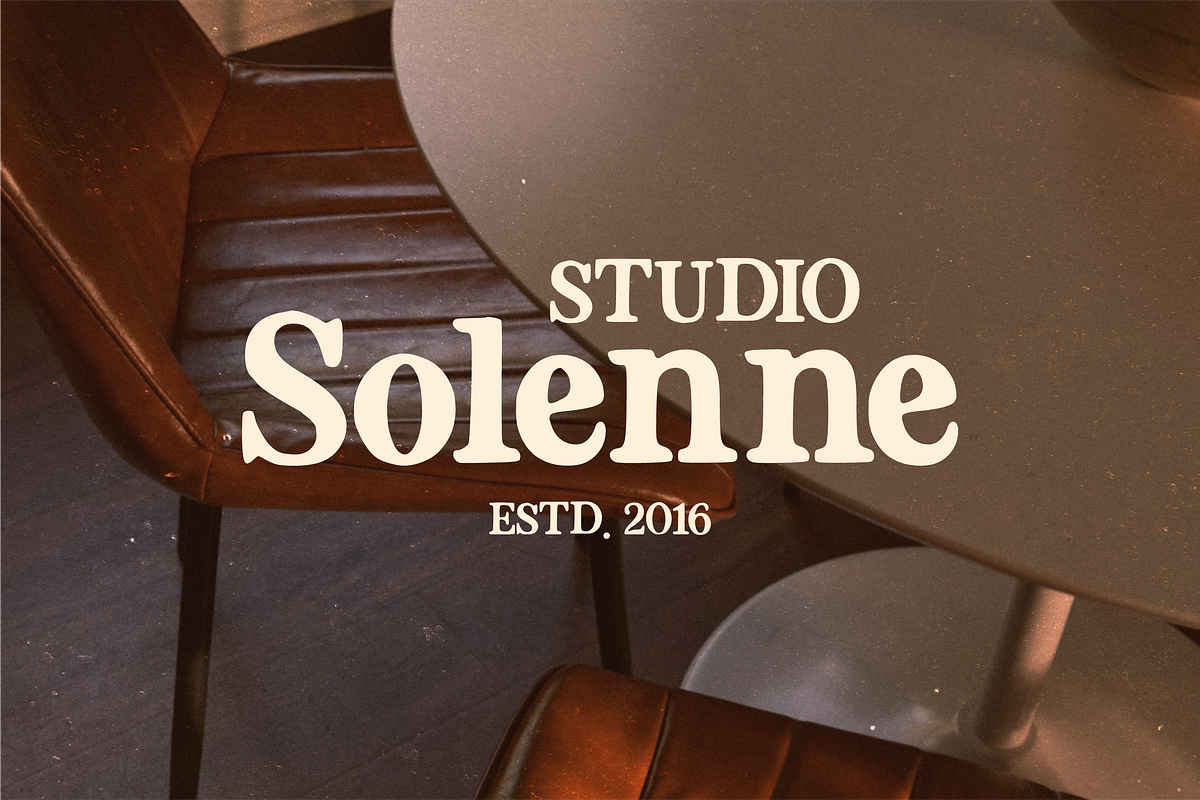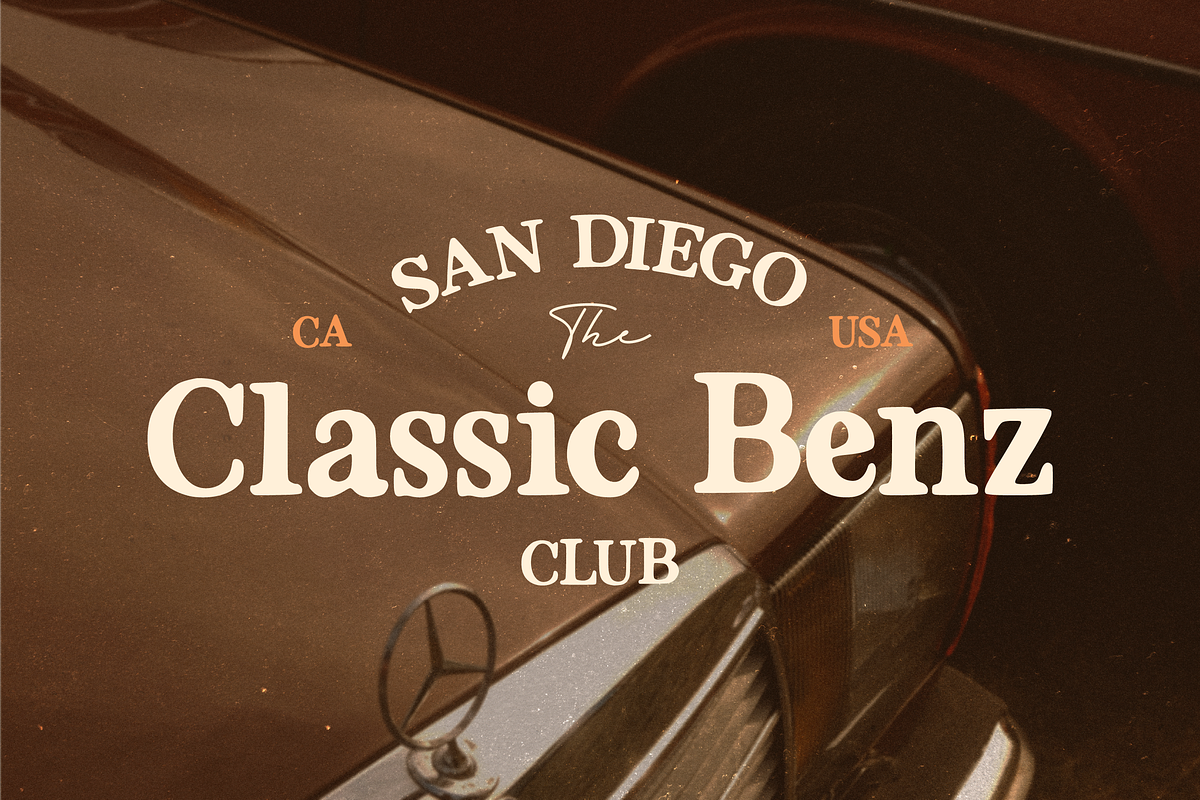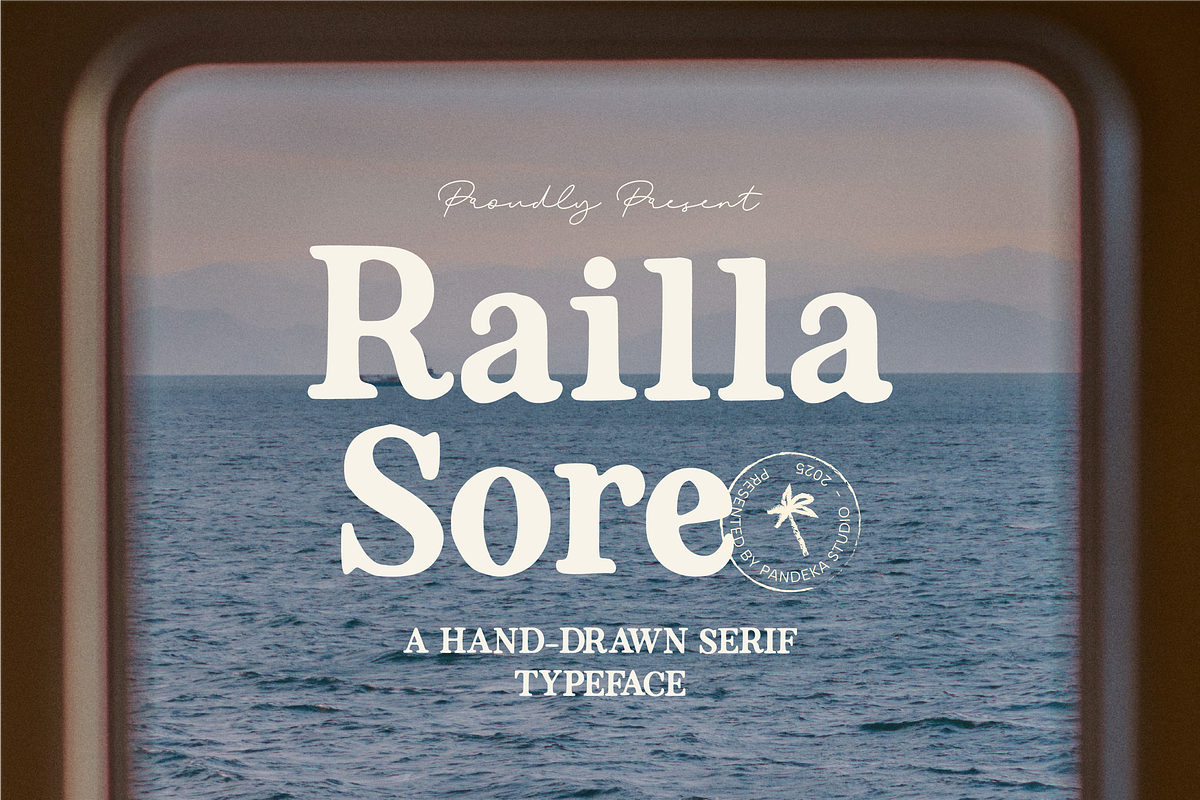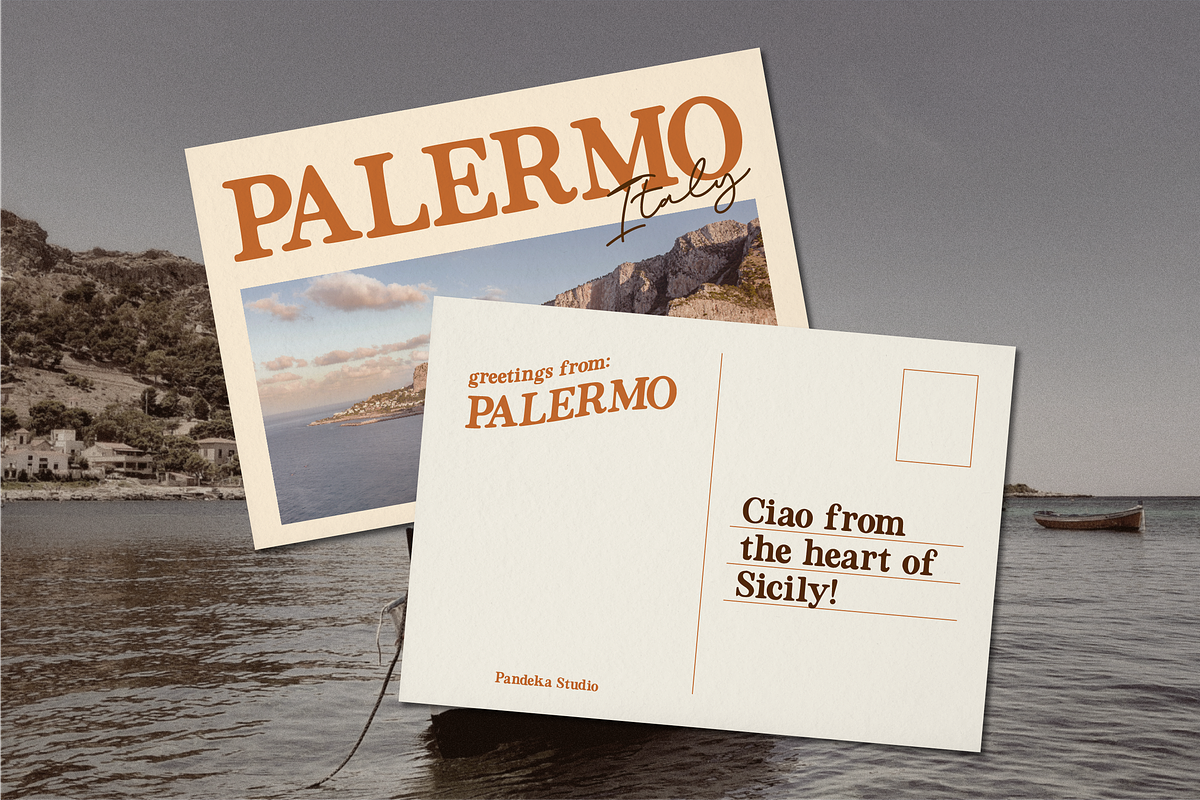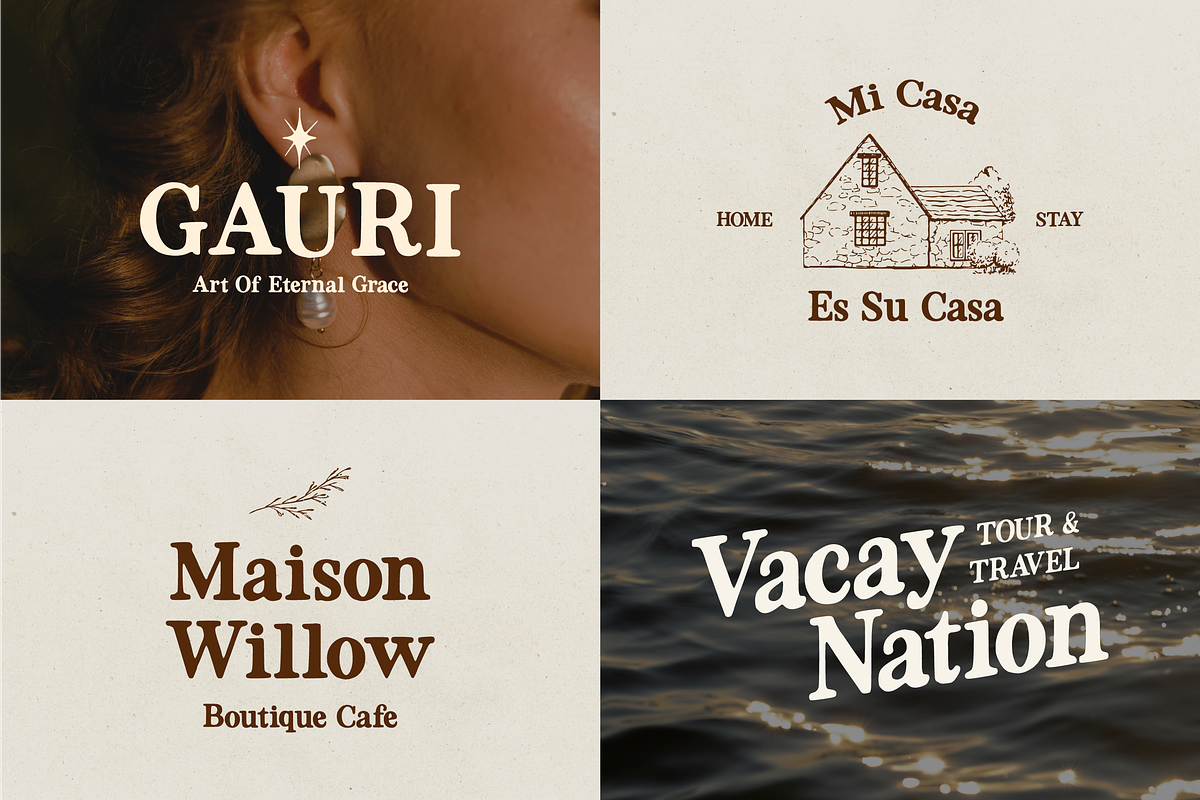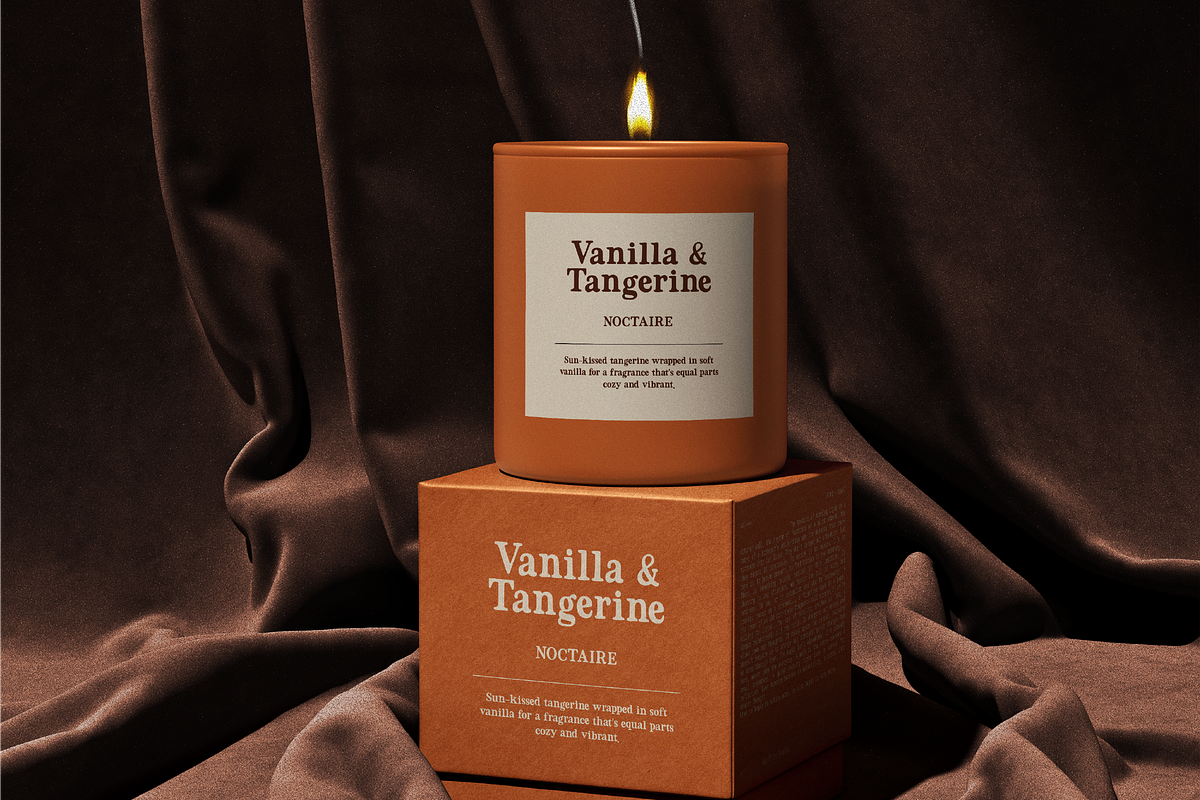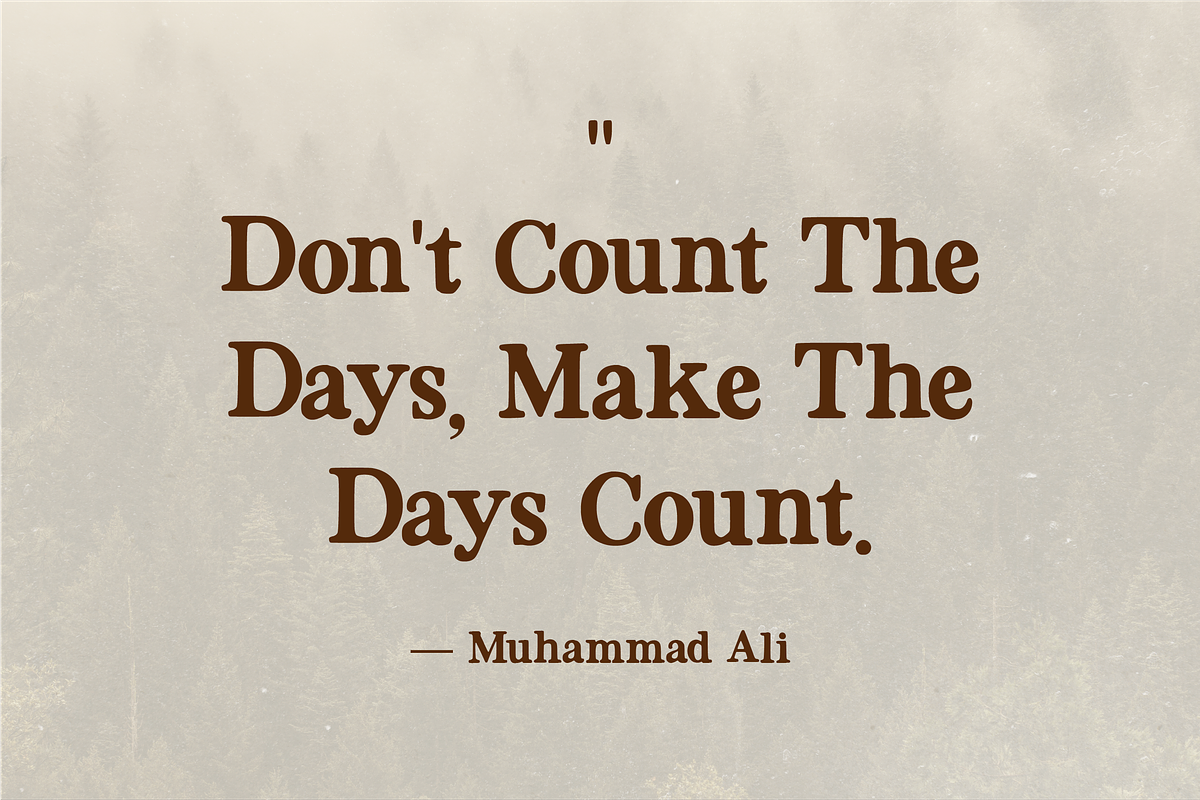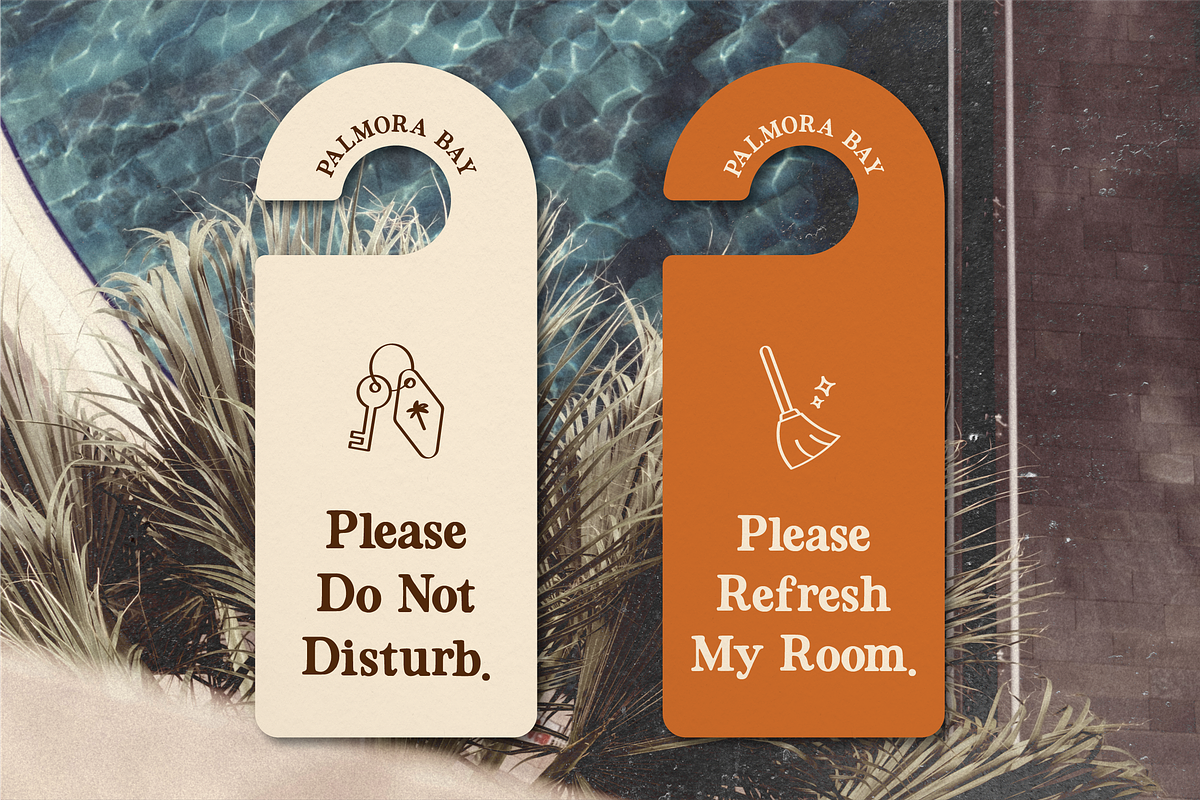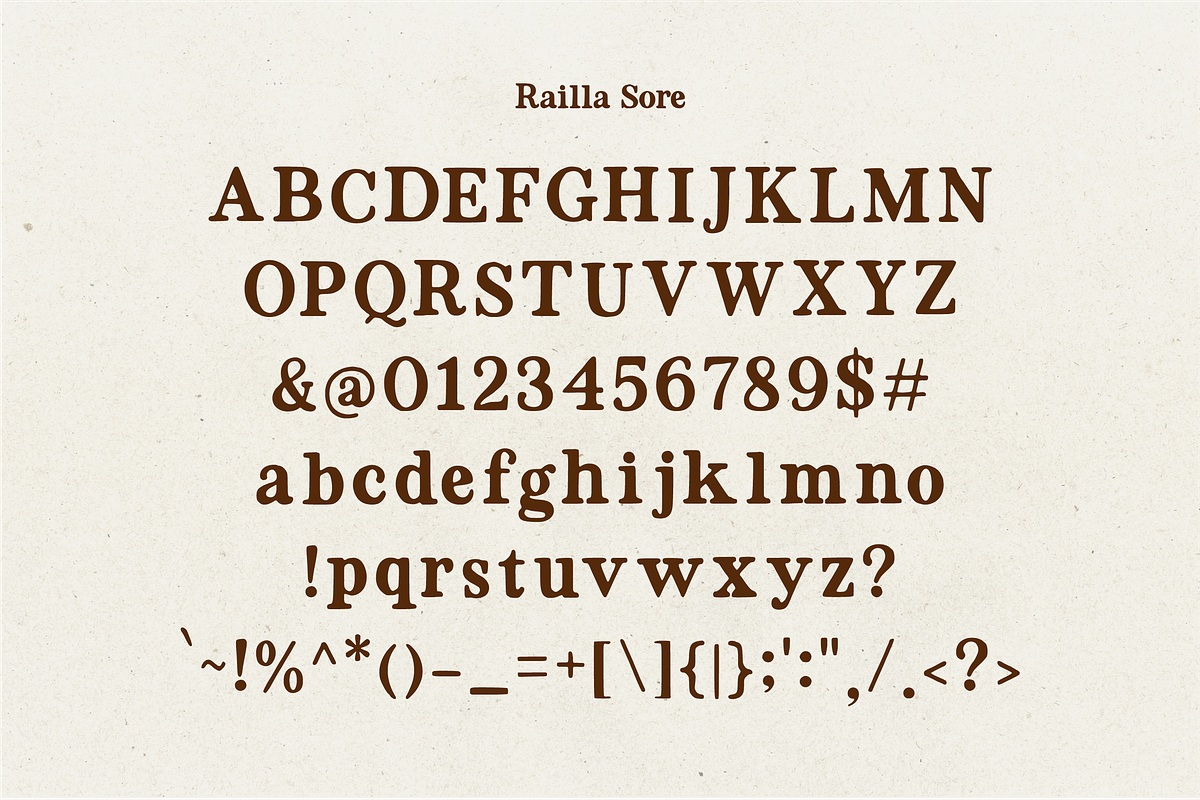
Railla Sore - Handmade Natural Serif
Railla Sore is a handmade natural serif font that blends rustic charm with modern elegance. Inspired by handcrafted lettering and organic forms, this font brings warmth, authenticity, and a personal touch to your designs.
With clean yet subtly textured letterforms, Railla Sore Regular is perfect for projects that need a balance of creativity and natural style. Use it for branding, logos, packaging, invitations, lifestyle editorials, and posters where you want to convey authenticity and timeless character.
Whether you’re designing for a boutique, crafting a packaging label, or setting editorial headlines, Railla Sore adds a handmade spirit that makes your work stand out with both elegance and approachability.